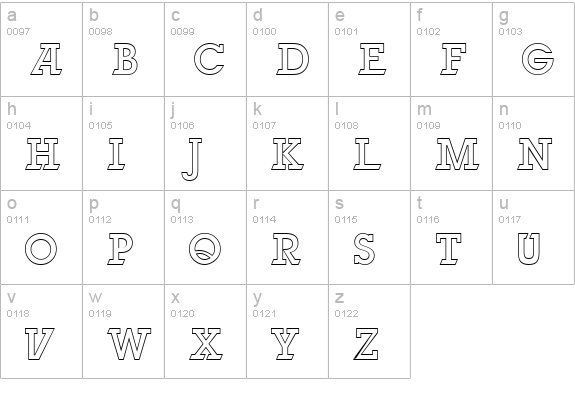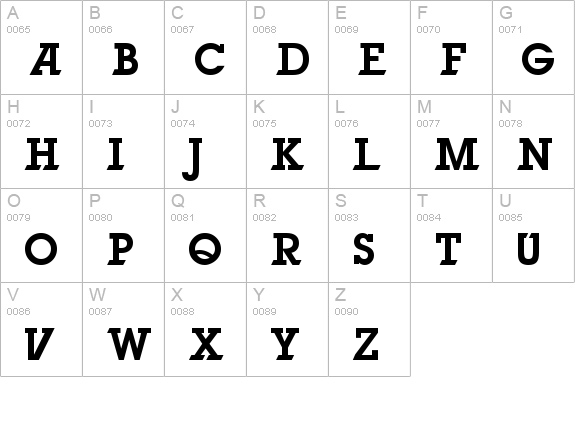
UNbreakABLE Font Details
Introducing UNbreakABLE, a powerful and bold font that exudes strength and resilience. This font is designed to withstand any challenge and make a lasting impact. With its clean lines and sharp edges, UNbreakABLE commands attention and delivers a message with unwavering certainty. UNbreakABLE is not only visually striking, but it also carries a deeper meaning. It represents the indomitable spirit within each of us, reminding us that we have the power to overcome any obstacle and emerge stronger than ever. This font is a testament to the human capacity for resilience and determination. One of the most remarkable features of UNbreakABLE is that it is completely free. We believe that everyone deserves access to high-quality fonts that inspire creativity and enable self-expression. That is why we have made UNbreakABLE freely available to download at FontsMarket.com. We want to empower individuals, designers, and artists to unleash their potential and create impactful designs that break barriers. Whether you're designing a logo that needs to make a lasting impression, creating a poster that demands attention, or crafting a powerful message that needs to be heard, UNbreakABLE is the perfect choice. Its versatility allows it to be used in a variety of contexts, from bold headlines to eye-catching titles. Download UNbreakABLE today at FontsMarket.com and experience the power of this remarkable font. Let it be the catalyst for your creative journey and the symbol of your unbreakable spirit. Embrace the strength within and defy limitations with UNbreakABLE.